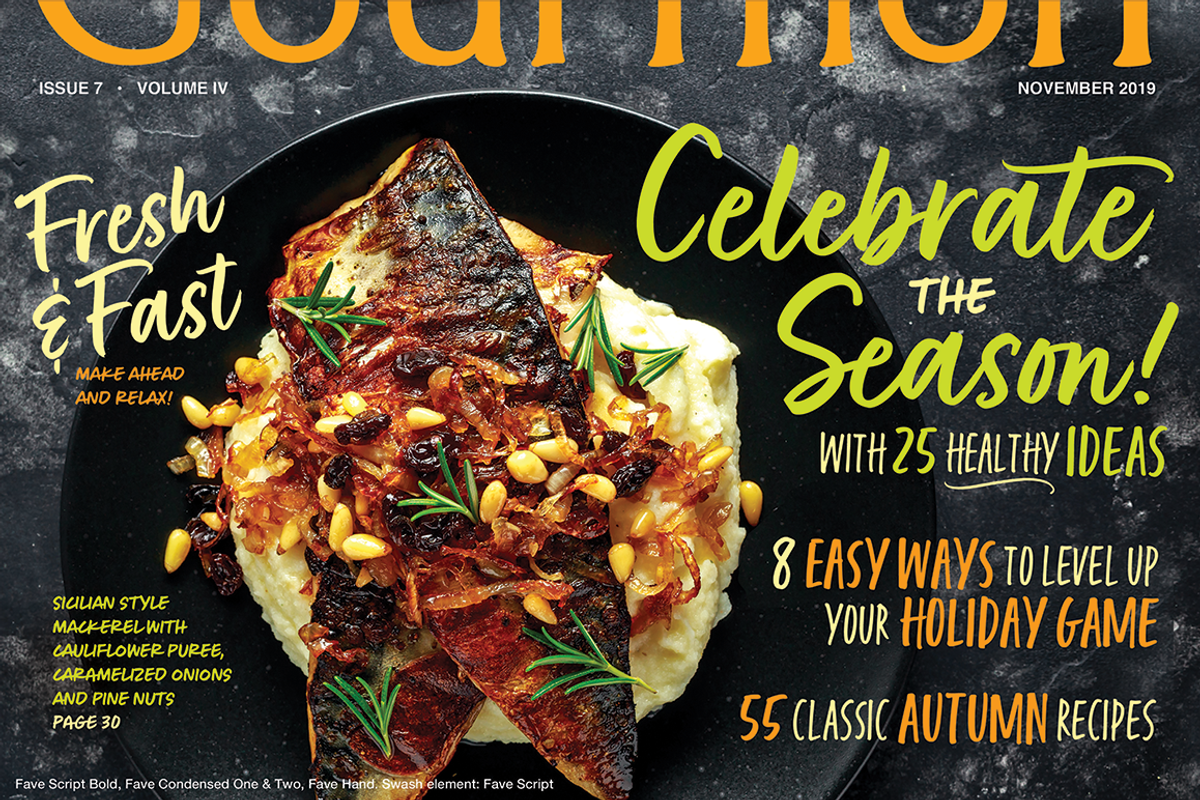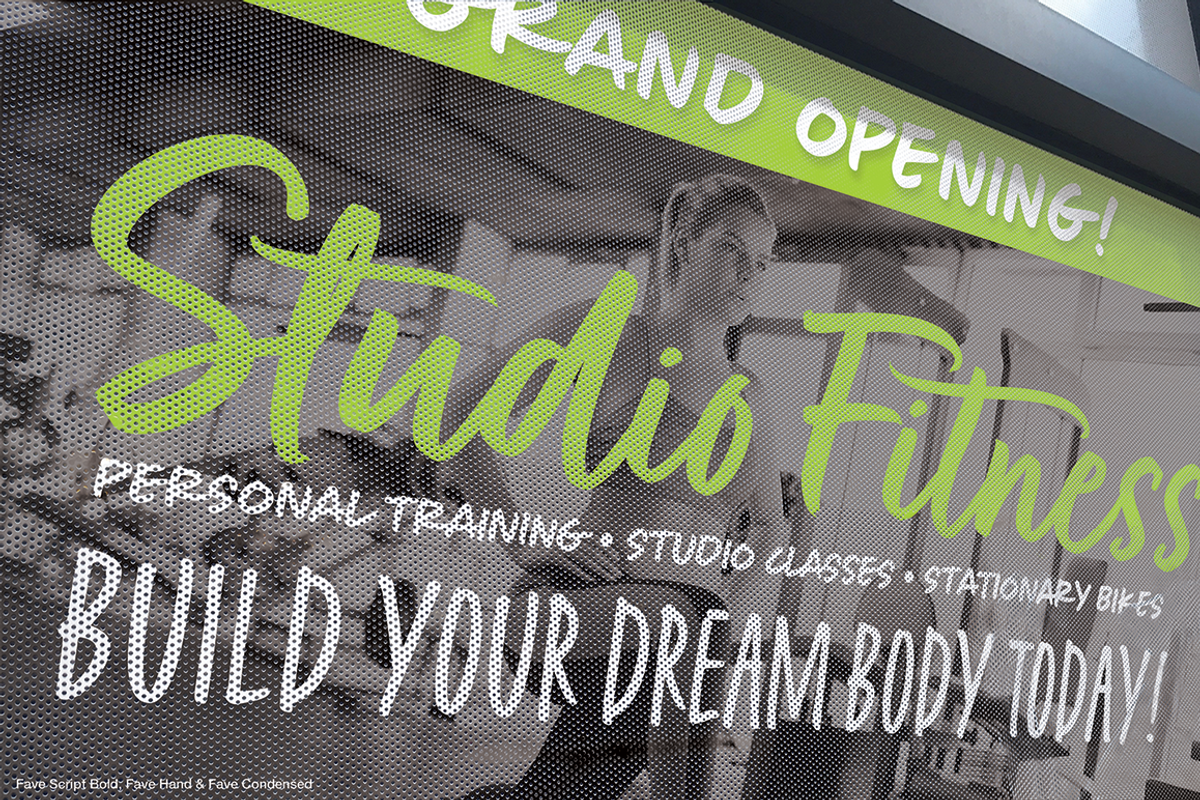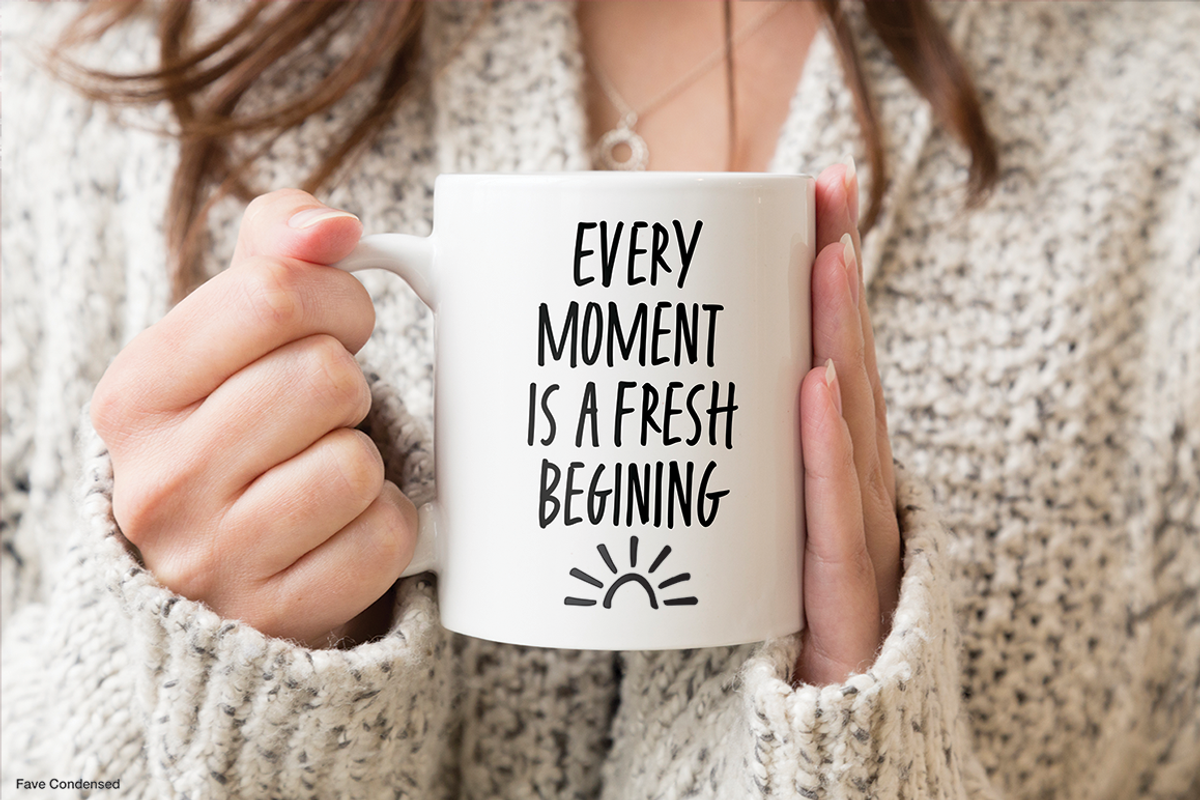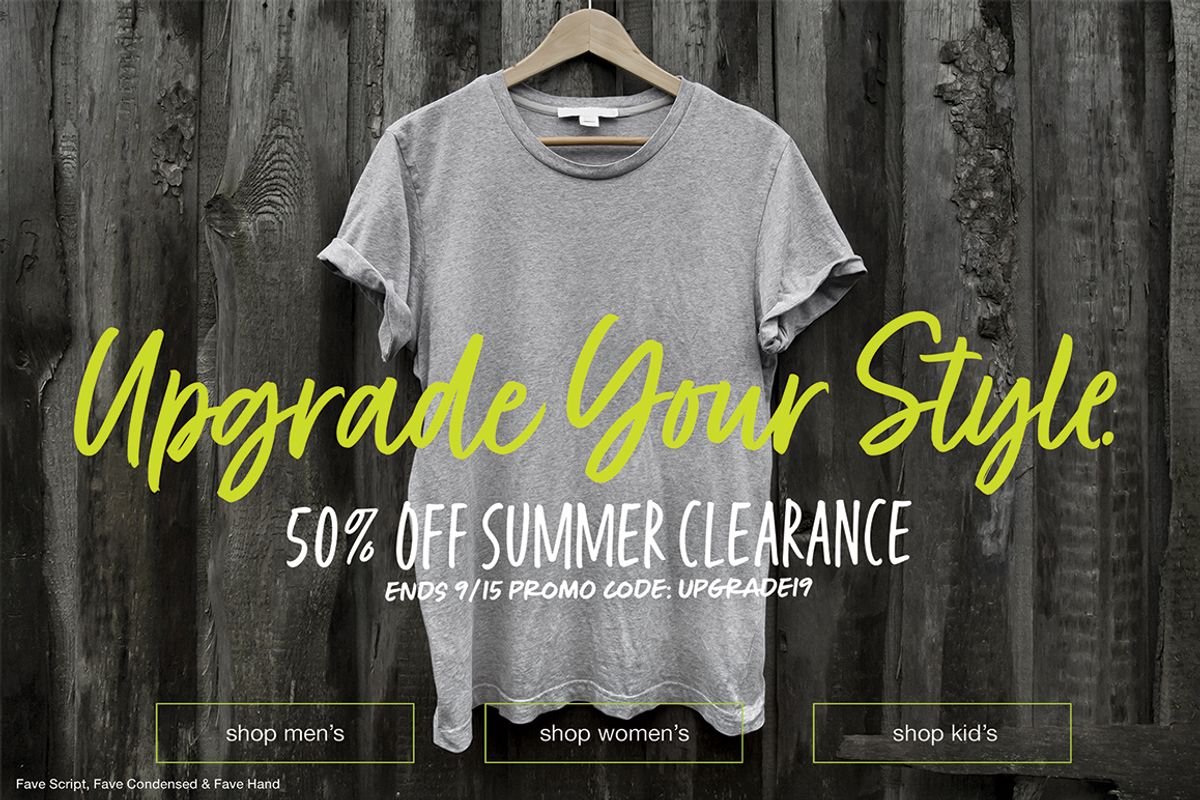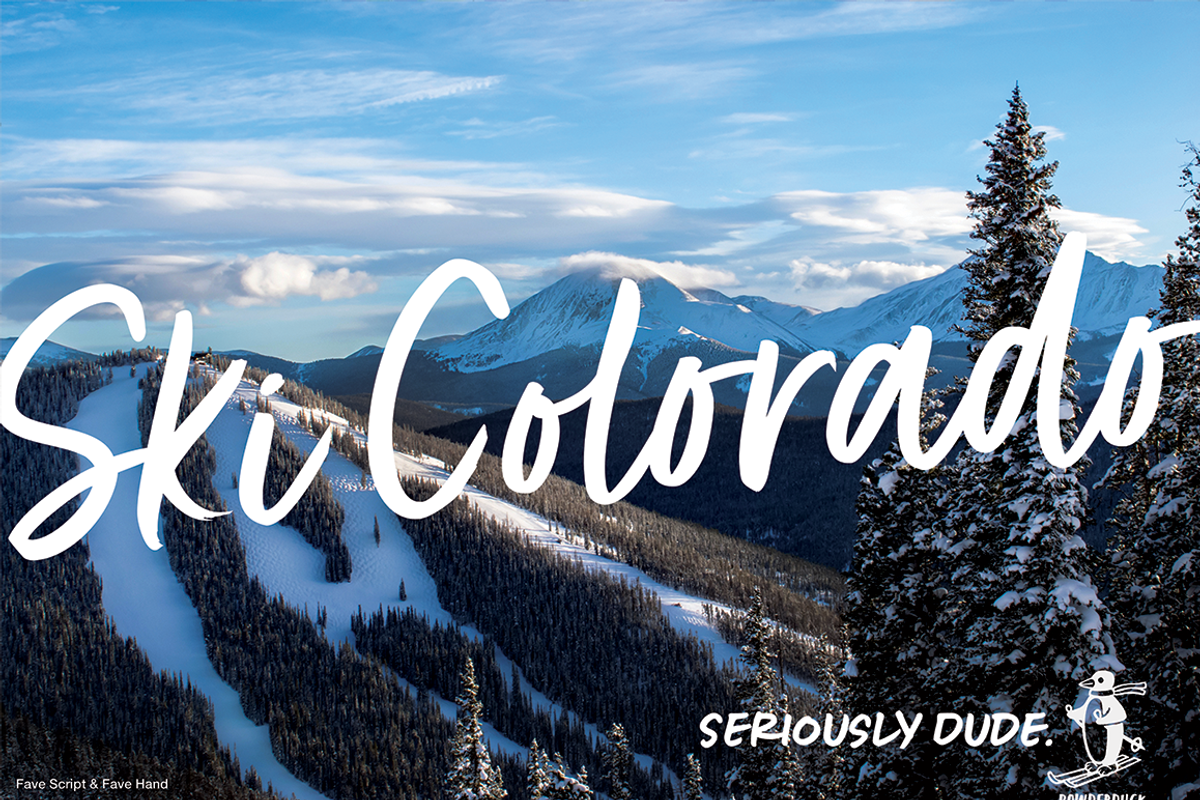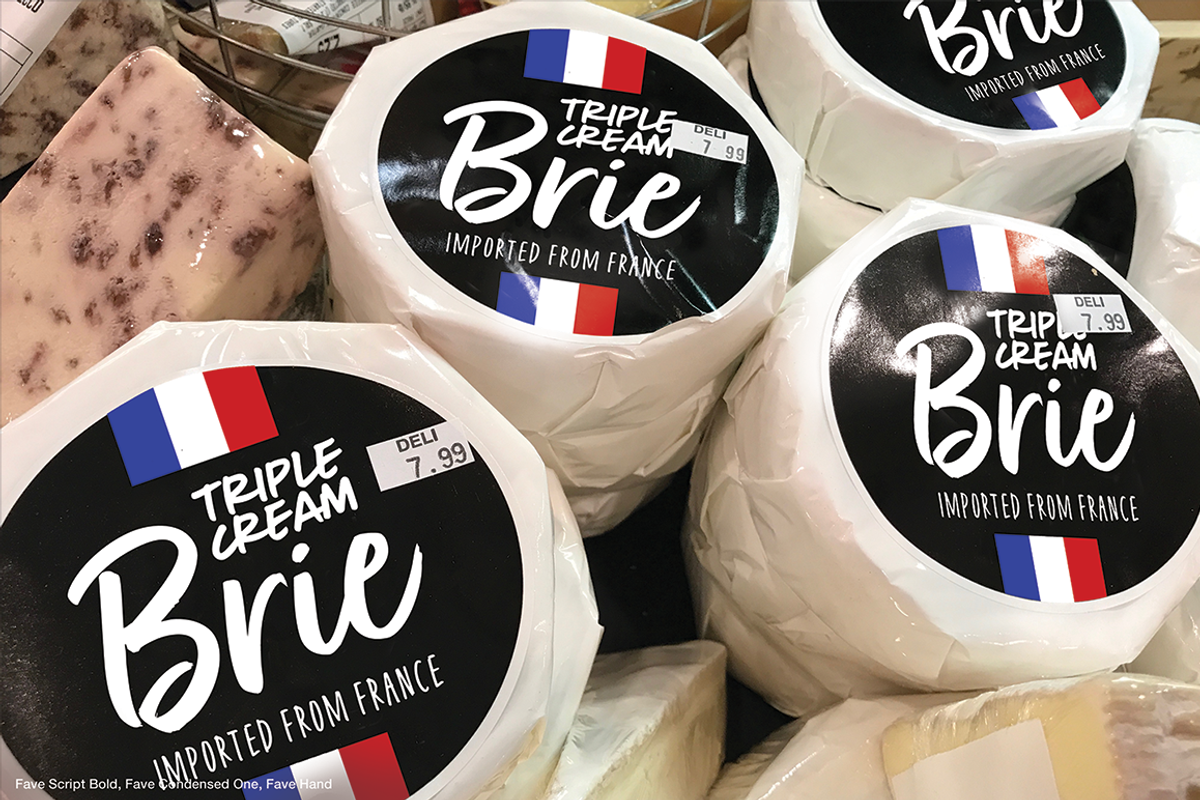
Fave™ Set (10 fonts)
The hand-brushed Fave™ Set has ten informal scripts and other handwritten fonts made up of two subfamilies: Fave and the even-more informal Fave Casual, each have a primary script with a bold version and three other handwritten faces for a total of ten typefaces spanning the casual spectrum. All are optimized for large type use too so they look as good up close as they do set at smaller sizes.
OpenType features The Fave family has a few features that happen largely in the background. All of the fonts use the OpenType Standard Ligature feature to automatically differentiate consecutive lowercase letters and numbers (using separate glyphs) and like our previous release Turbinado, they also automatically differentiate like characters that are separated by another letter.
Alternate characters The script fonts have alternate uppercase and lowercase characters including multiple t (and double t) crossbar alternates that can be selected from the OpenType glyph table. Enable Contextual Alternates feature to automatically insert a bigger crossbar as the surrounding letters allow throughout a text box or document. You can also make your own custom lowercase t and crossbar to fit any situation–all of the lowercase t ascenders and crossbars are available separately in the OpenType glyph table, and can be combined and moved around manually. Stylistic sets and other goodies Fave Script and its bold counterpart have two Stylistic Sets. When enabled, one automatically substitutes non-connecting alternate characters at the ends of words, the other substitutes even bigger t crossbars than the Standard Ligature feature does.
Smart apostrophes and ligatures Other subtle but hopefully helpful features include smart apostrophes, which insert themselves between two script characters in common situations without breaking their connection, and a few ligatures that also make character connections more seamless.